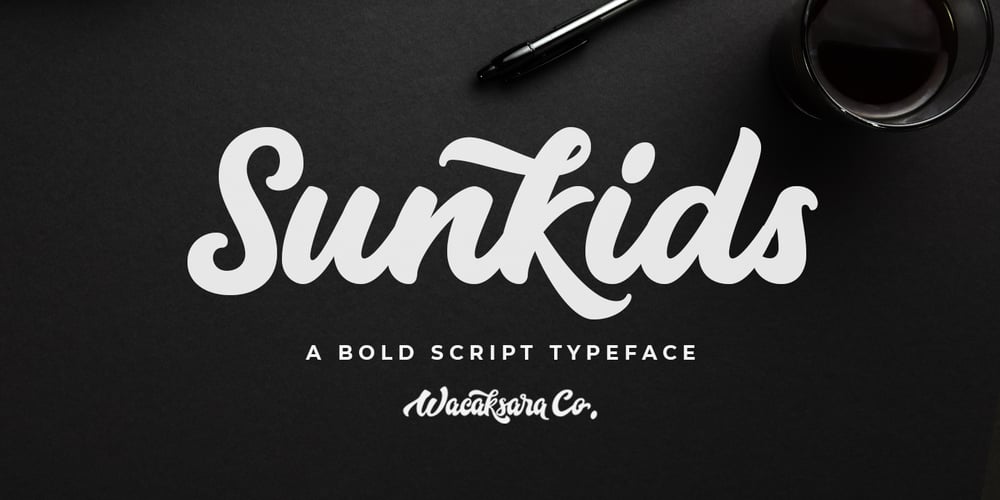
Sunkids Font Family was designed by Aliv Pandu, Hamam Jauhari and published by Wacaksara co. Sunkids contains 1 styles and family package options. Sunkids is a bold connected script font inspired by the spirit of sports and the Olympic Games. This font is great for your next creative project such as logos, printed quotes, invitations, cards, product packaging, headers, Logotype, Letterhead, Poster, Apparel Design, Label, and etc. Sunkids comes with uppercase, lowercase, numerals, accents (Multilingual characters), punctuations and so many variations on each character include OpenType alternates, PUA encoded and common ligatures.